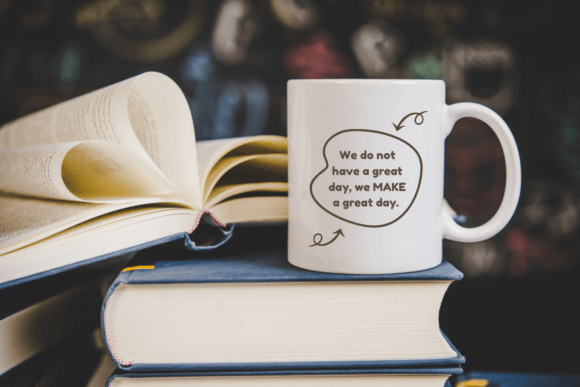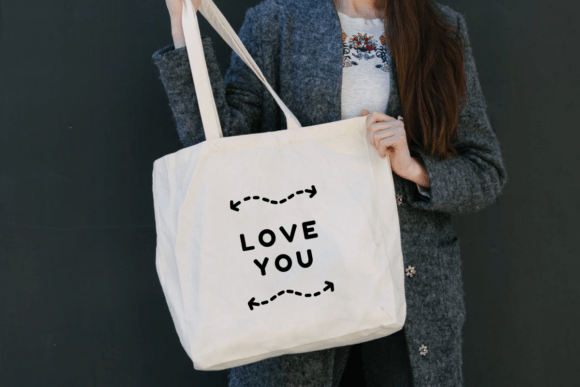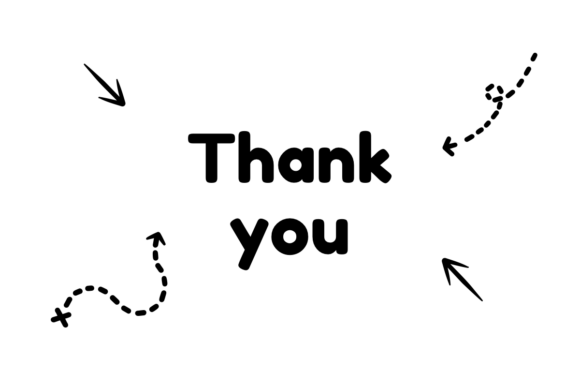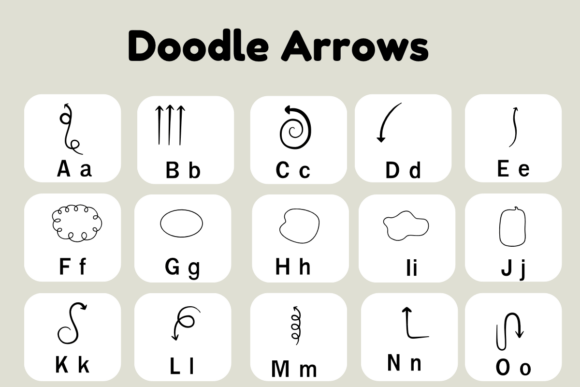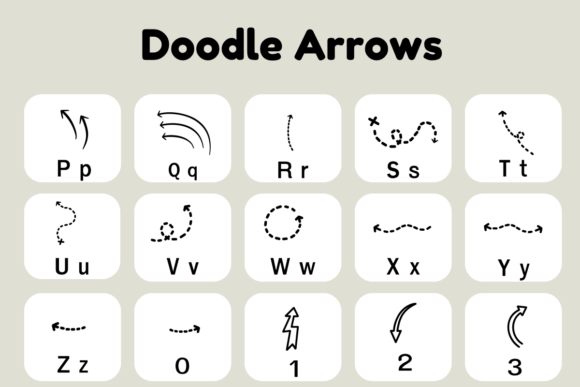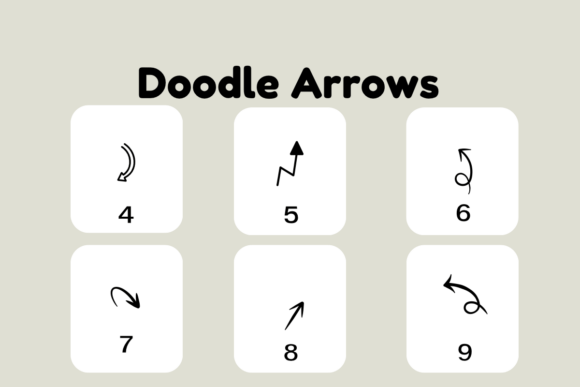
The Magic of Doodle Arrows Font: Unlocking Your Creative Potential
You know that moment when a spark of creativity hits, and you feel like you’re on top of the world? The ideas start flowing, and you can’t wait to bring them to life. For designers and crafty enthusiasts, this moment is all too familiar. It’s the thrill of creating something unique and special, something that reflects your personality and style. And that’s exactly where the Doodle Arrows Font comes in – a dingbats font with an abstract theme that’s perfect for adding a touch of whimsy to your projects.
This versatile font is more than just a design element; it’s a tool that can elevate your creative projects and make them truly stand out. Whether you’re designing wedding invitations, crafting decorations, or creating logos, the Doodle Arrows Font is an invaluable asset that can help you achieve your artistic vision.
Doodle Arrows Font Key Features
- Unique Characteristics: Doodle Arrows Font features a unique, hand-drawn design with a playful and creative feel. The font includes a variety of arrow shapes and styles, making it perfect for adding a touch of whimsy to designs.
- Number of Glyphs: The font includes a wide range of glyphs, including uppercase and lowercase letters, numbers, punctuation marks, and special characters, making it suitable for a variety of design projects.
- Font Style: The font is available in a single style, but it can be easily customized using various font editing software to create different effects and styles.
Doodle Arrows Font Review
I recently had the chance to work with the Doodle Arrows font, and I have to say, it’s a mixed bag. Here are my thoughts:
- The font has a great, playful feel to it. It’s perfect for projects that need a bit of whimsy.
- The arrow doodles are well-designed and add a nice touch to headings and titles.
- The font is highly customizable, with a wide range of styles and sizes available.
- The font can feel a bit too playful, which may not be suitable for all projects.
- The arrow doodles can be distracting if used excessively.
- The font may not be ideal for projects that require a lot of text, as it can be hard to read.
I would recommend the Doodle Arrows font for projects that need a bit of flair and personality. However, it’s not a good choice for projects that require a professional or serious tone. With a bit of restraint and creative direction, this font can be a great addition to any design project.
Doodle Arrows Font: A Practical Application Guide
To get the most out of the Doodle Arrows font, try combining it with other creative fonts and design elements, such as doodles, arrows, and icons.
Experiment with different font sizes, colors, and styles to create a unique and eye-catching design.
The Doodle Arrows font is perfect for:
- Creating playful and whimsical designs.
- Adding a touch of creativity to presentations and reports.
- Designing social media graphics and advertisements.